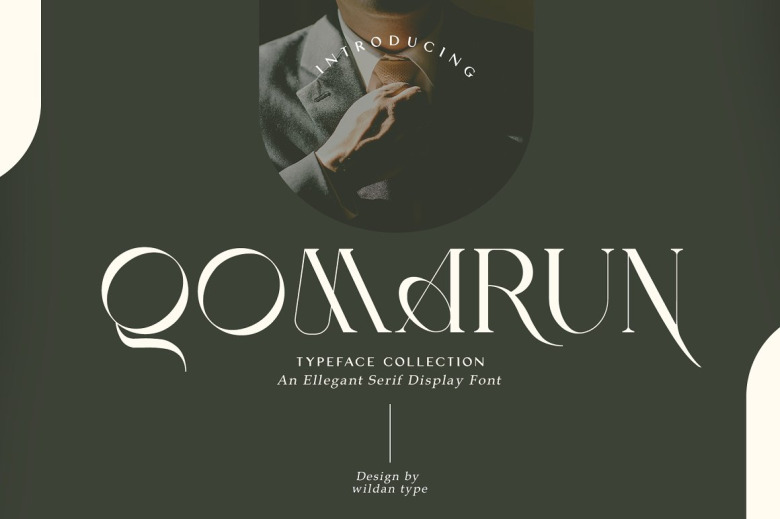
Qomarun Font
A New Kind Of Typeface. Qomarun–a contemporary, luxurious fashion\serif, series-font: It was unic designed for flexibility that foreshadows future applications. Qomarun is a wonderfully flexible font for product presentation logos, elegant packaging that is going to be kept by your customers or to create invitations and heading text.
Qomarun provides symbol and multiple-language support. The features include two styles; numbers & punctuation; extensive language support. It includes ligatures.
Qomarun Serif Font